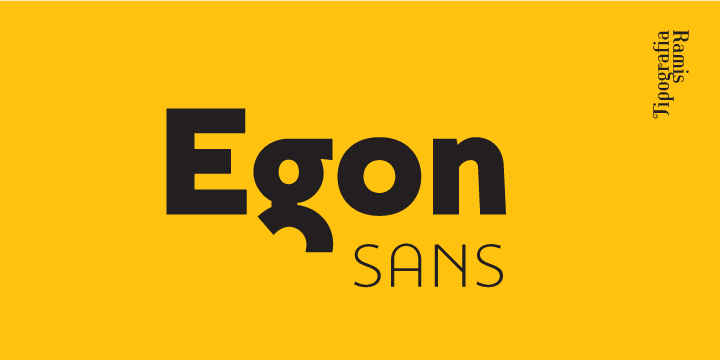
Egon Sans Font Family
Egon Sans is a geometric sans serif typeface family built in ten styles (extra-light, light, regular, bold and black weights all in roman and italic).
| Designer Name: | TipografiaRamis |